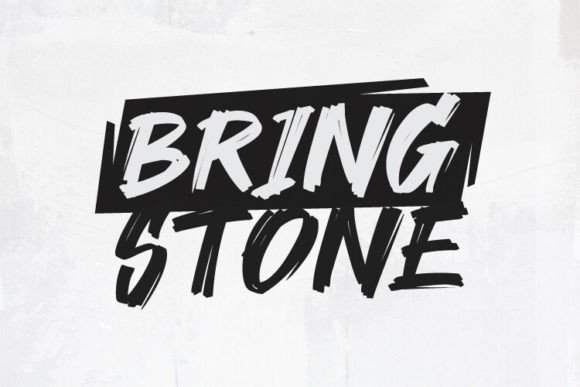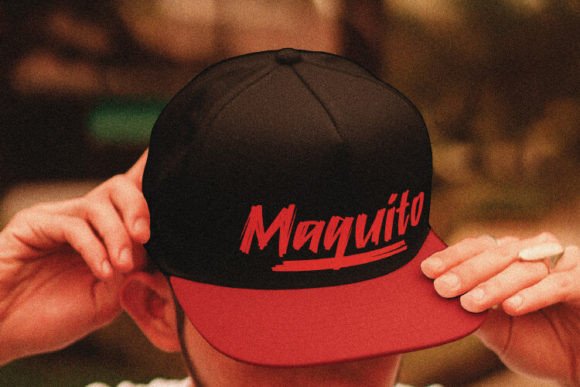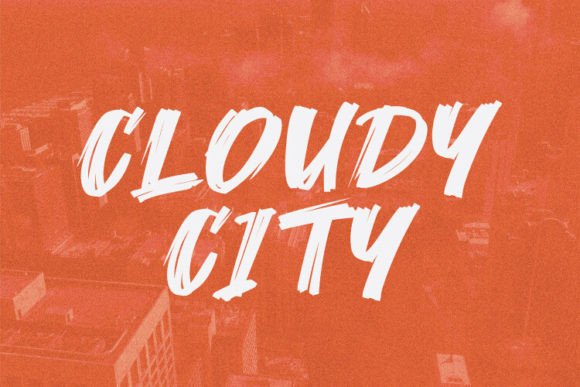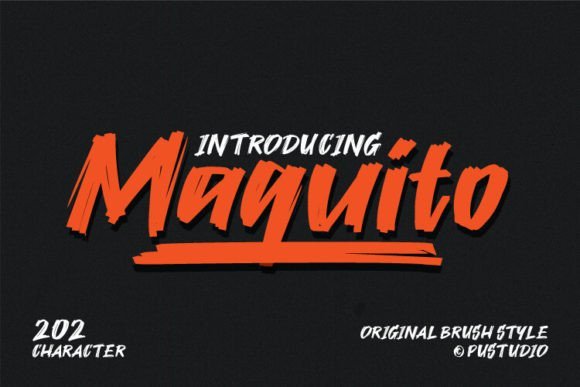
Introduction to Maquito Font
Immerse yourself in the robust charm and unrivaled character of Maquito, a brush font crafted with intensity and purpose.
Its bold aesthetics and firm impression make it a versatile choice for designing impactful logos, custom t-shirts, stylish hats, and beyond Experience the thrill of design with the distinctive strokes of Maquito, never compromising on dynamism or intrigue, ensuring every creation is far from mundane.
Maquito Font offers exceptional quality and versatility, making it a valuable addition to your design toolkit. Whether you’re creating for personal projects or commercial use, Maquito Font delivers professional results.